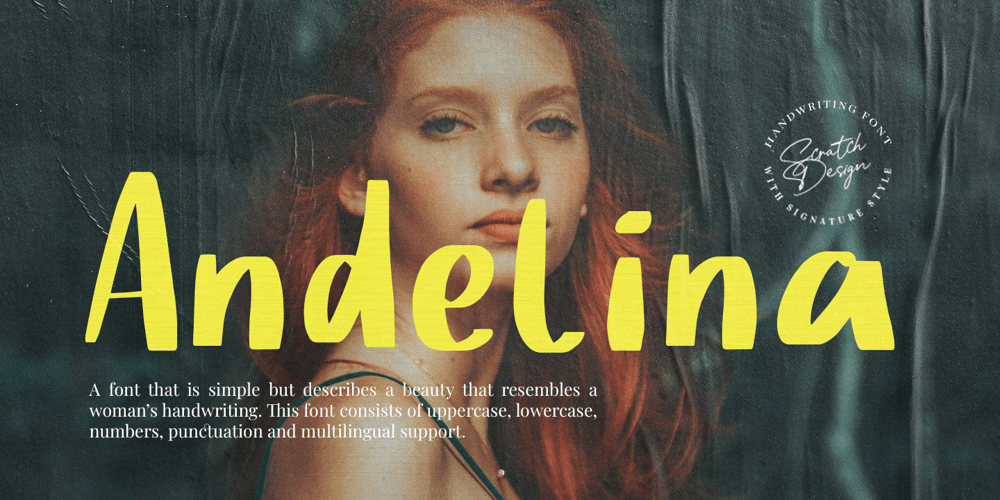
Andelina Font Family was designed by Gitayogi Irhandi and published by Scratch Design. Andelina contains 1 styles and family package options. Introducing Andelina, where simplicity meets beauty and elegance with a playful twist. Crafted with a brush, this font captures the graceful handwriting of a woman. Its charm lies in its delightful balance of sophistication and playfulness, making it perfect for a wide range of projects. Whether you’re designing invitations, branding materials, or social media graphics, Andelina adds a touch of feminine flair that will captivate your audience.In this font, you will get: Uppercase & lowercase Numbers & Punctuation Multilingual Support We hope you enjoy our font. Thank you!